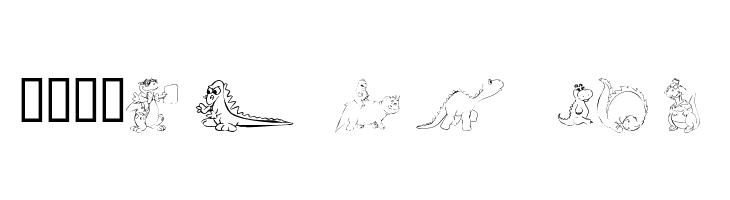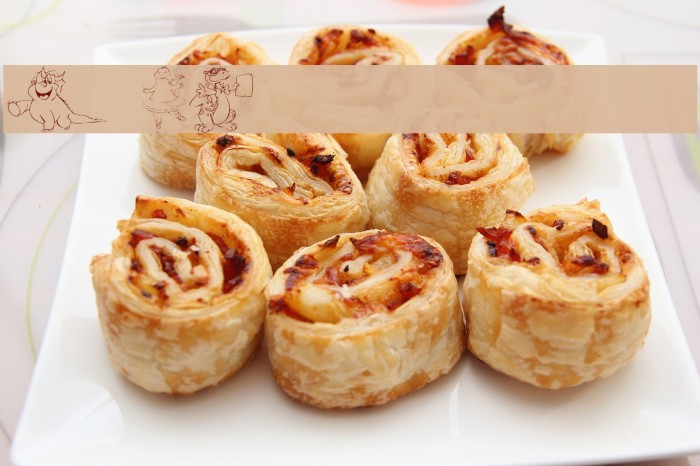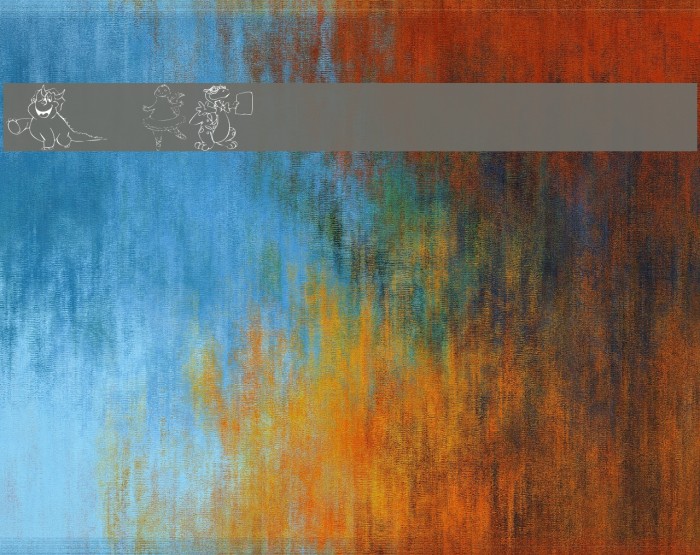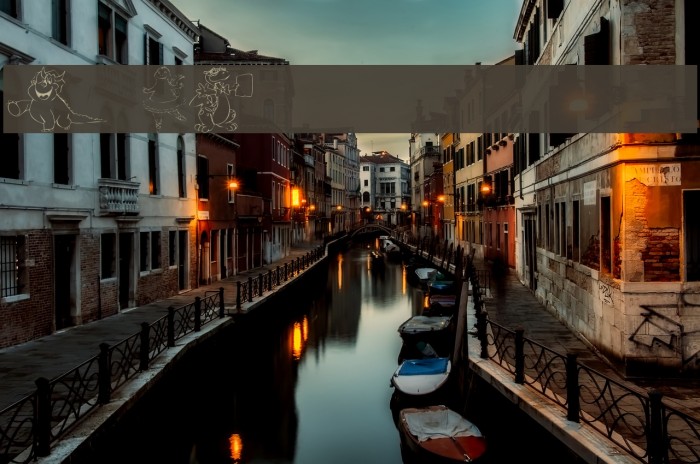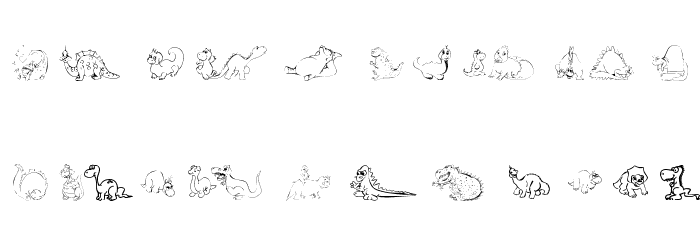
101! Cute DinoZ Font
101! Cute DinoZ Description
A playful and decorative font featuring hand-drawn cartoon dinosaur illustrations in place of standard alphanumeric characters, each glyph uniquely styled with whimsical and friendly expressions.
Cartoon dinosaur illustrations replace traditional letterforms from Uncategorized fonts.
- Proposed Projects: Children’s books, birthday invitations, educational materials, playful branding, themed party decorations.
- Overall Style: Playful, Whimsical, Decorative
- Use Case: Logos, Headlines, Posters, Children’s content